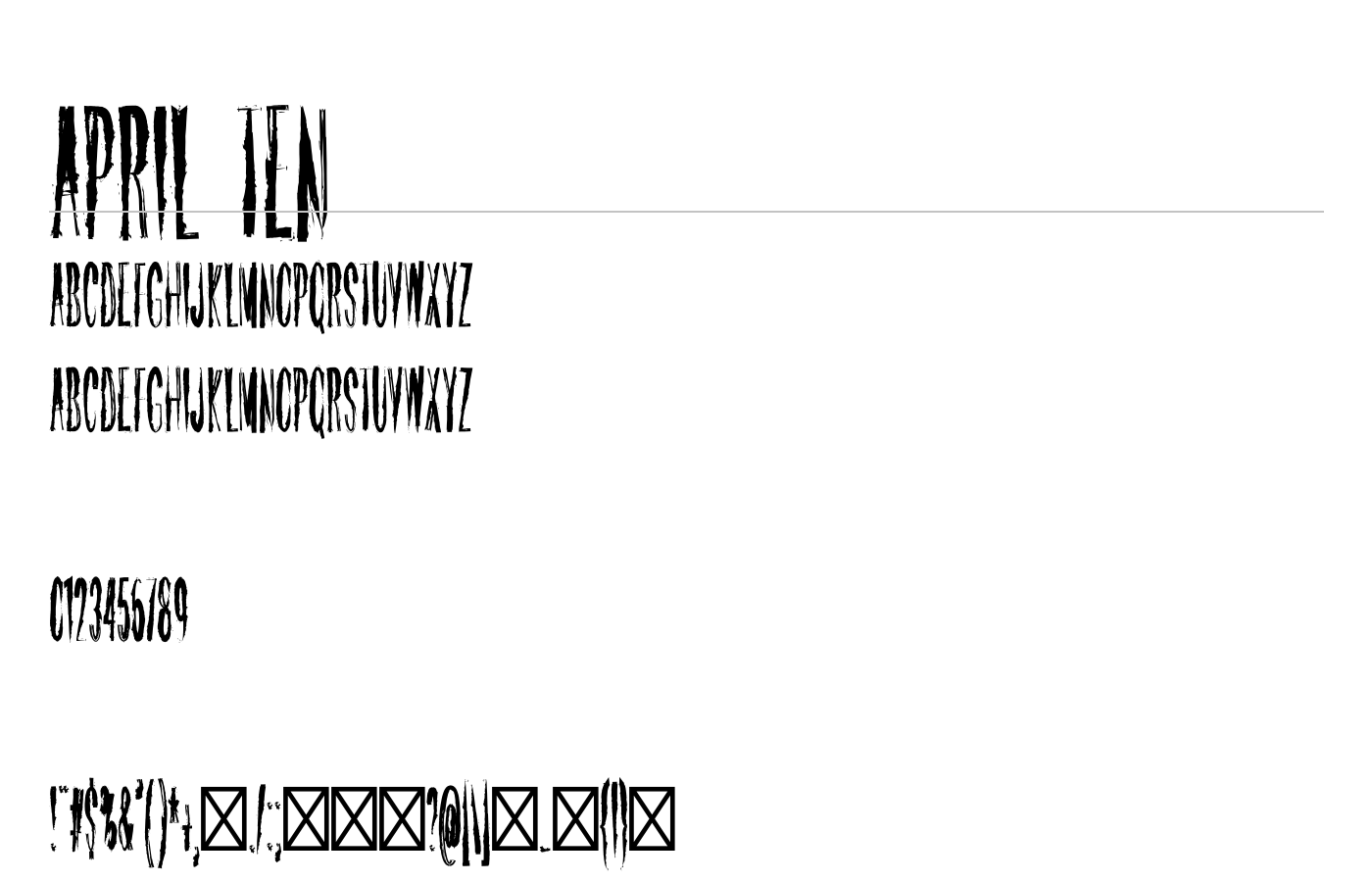
April Ten is a tall, narrow sans serif font with a distressed, textured look that gives it a raw and edgy personality. Its uneven strokes and rough edges create a grunge or hand-painted feel, making it ideal for bold headlines, posters, or designs that want to convey intensity and urban style. This font works best in creative projects where a strong, unconventional vibe is desired.
April Ten Font
About April Ten Font
| Designer | Iordanis Passas |